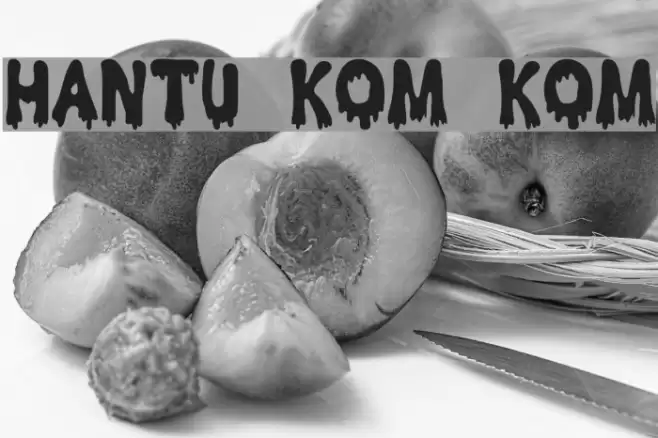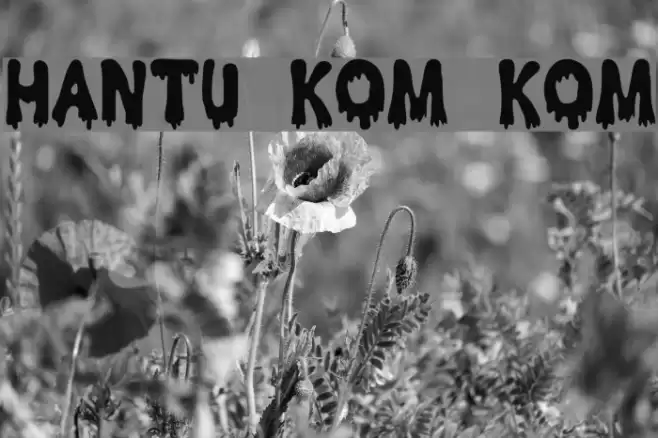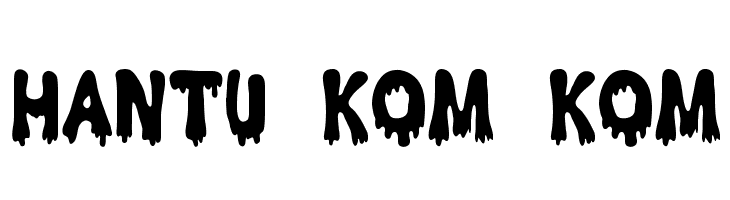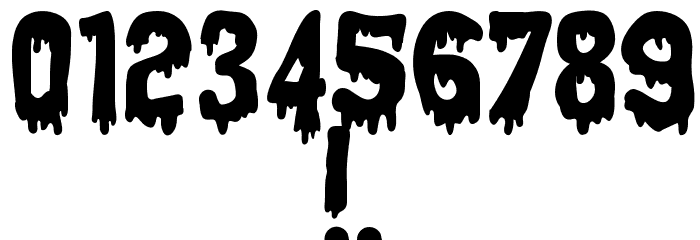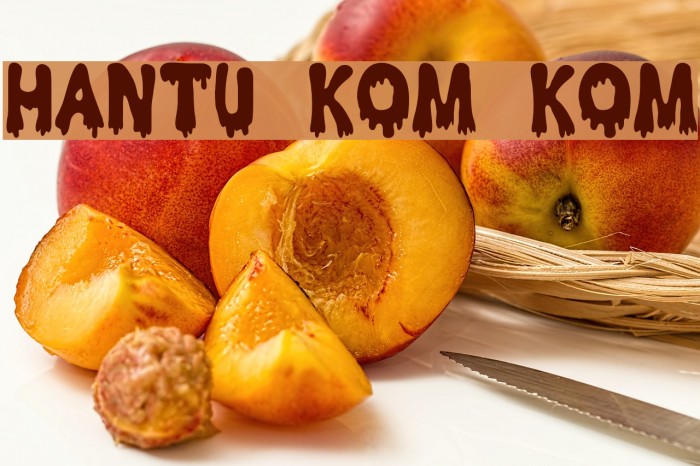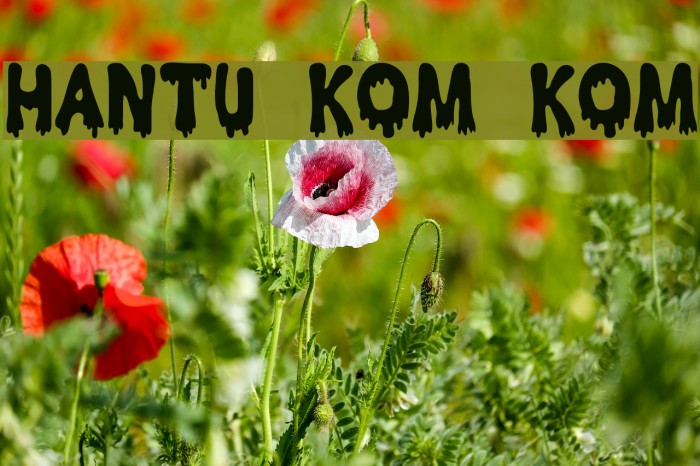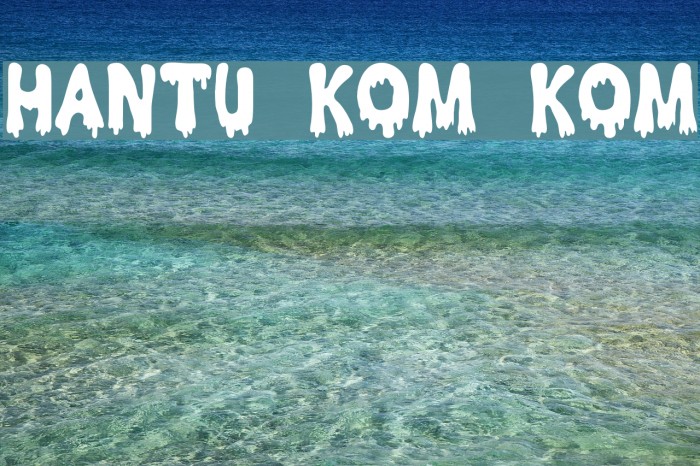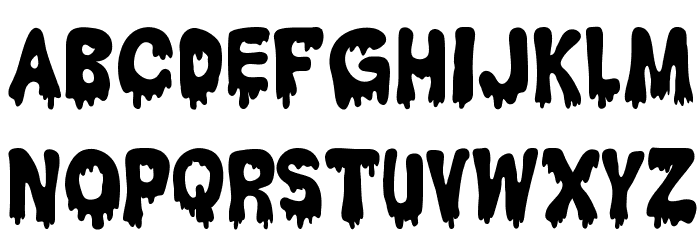
Hantu Kom Kom Font
Hantu Kom Kom Description
This font features a bold and playful design with a dripping effect that gives it a spooky, Halloween-inspired appearance. The characters are thick and rounded, with each letter appearing as if it's melting or oozing. This unique style is consistent across both uppercase and lowercase letters, as well as numbers and special characters. The font's distinctive look makes it ideal for creative and themed projects, adding a touch of eerie fun to any design.
A bold, dripping font with a spooky, playful style from Uncategorized fonts.
- Proposed Projects: Ideal for Halloween-themed designs, party invitations, horror movie posters, and creative branding projects.